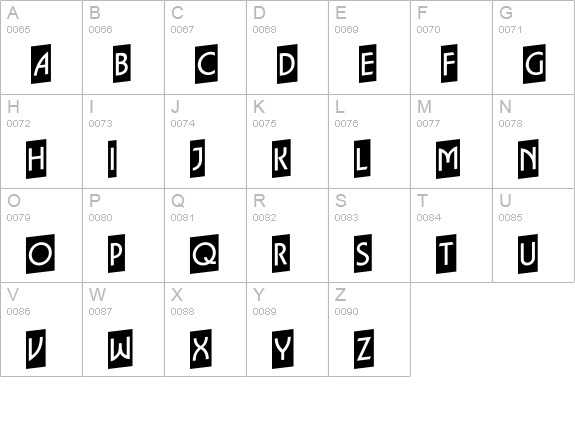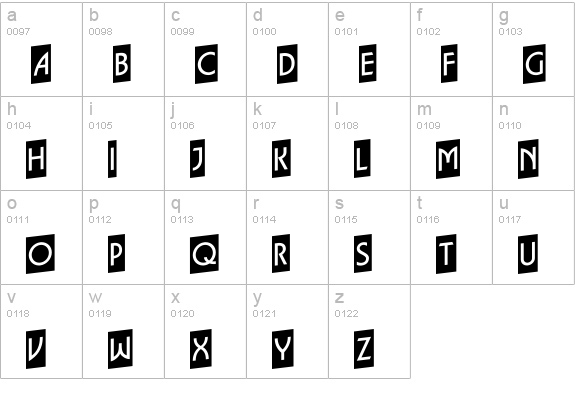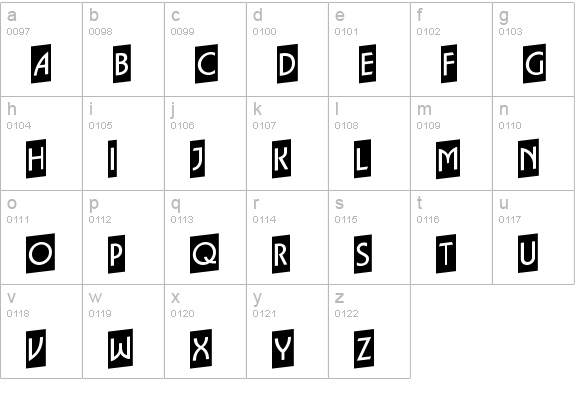
a_LancetCmUp Font Details
Introducing a_LancetCmUp font, a modern and stylish typeface that exudes elegance and sophistication. This unique font features sleek lines and sharp angles, giving it a contemporary and edgy look. Perfect for adding a touch of flair to your designs, a_LancetCmUp is versatile and eye-catching. What's even better is that a_LancetCmUp font is completely free to download at FontsMarket.com. Yes, you read that right - you can get your hands on this stunning font without spending a dime. Whether you're working on a branding project, creating posters, or designing invitations, a_LancetCmUp will take your designs to the next level. Don't miss out on this fantastic opportunity to enhance your creative projects with the sleek and modern a_LancetCmUp font. Download it now at FontsMarket.com and let your designs stand out from the crowd.